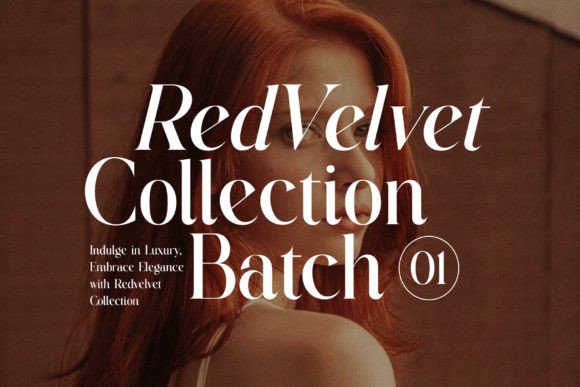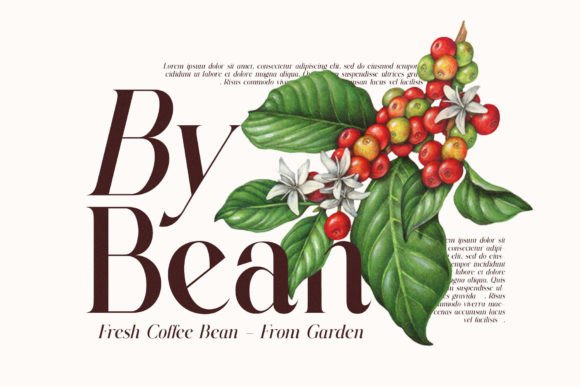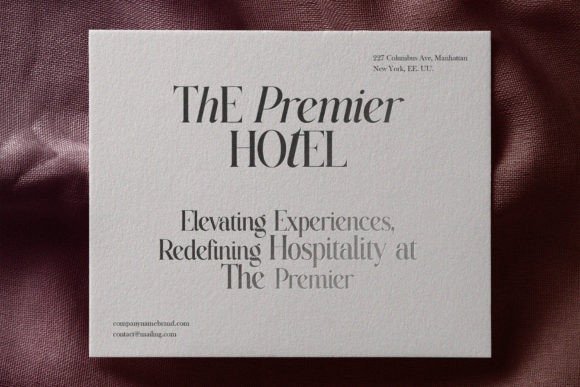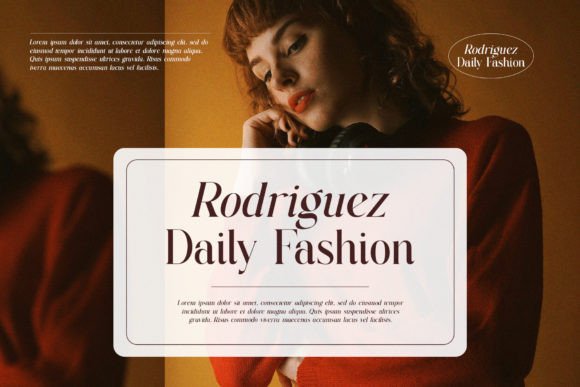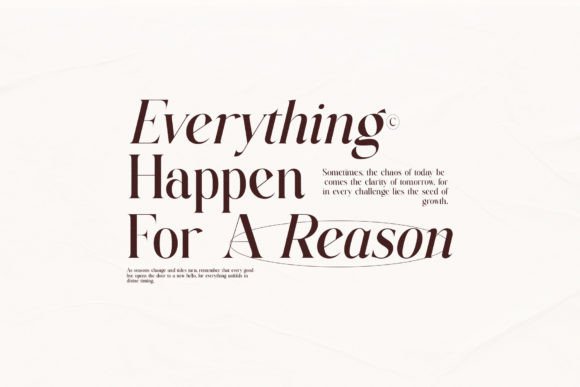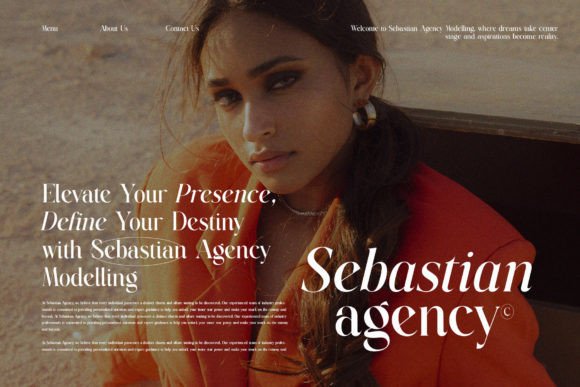
Gilkyst Font: A Modern Twist on Classic Italian Type
In the world of typography, fonts play a crucial role in conveying messages, evoking emotions, and creating brand identities. For designers and crafters, finding the right font can make all the difference in their creative projects. One font that has gained attention in recent times is the Gilkyst font, a elegant serif typeface that draws inspiration from the rich history of Italian type.
The Inspiration Behind Gilkyst Font
The Gilkyst font is a nod to the classic Italian typefaces that have been a cornerstone of typography for centuries. Its creators sought to bring a modern twist to traditional serif fonts, resulting in a unique and sophisticated typeface. The font’s design is reminiscent of the ornate and elegant styles of Italian typography, with clean lines, precise curves, and a sense of refinement.
Characteristics of Gilkyst Font
Gilkyst is a serif font that boasts a range of characteristics that make it ideal for various design applications. Some of its key features include:
- Elegant and refined design: Gilkyst’s serif design exudes sophistication and elegance, making it perfect for high-end brands, fashion labels, and luxury products.
- Modern style: The font’s modern twist on traditional serif fonts makes it versatile and suitable for a wide range of design projects, from logos and billboards to posters and editorials.
- Legibility: Gilkyst’s clear and precise lines ensure excellent legibility, even at smaller font sizes, making it ideal for body text and captions.
Use Cases for Gilkyst Font
Gilkyst font is a versatile typeface that can be used in various design applications, including:
- Logos: Gilkyst’s elegant design makes it perfect for logos that require a touch of sophistication and refinement.
- Billboard advertising: The font’s modern style and excellent legibility make it suitable for billboard advertising, where impact and clarity are crucial.
- Fashion labels: Gilkyst’s luxurious feel makes it an excellent choice for fashion labels, where style and sophistication are paramount.
- Posters and modern editorials: The font’s elegant design and versatility make it ideal for posters and modern editorials, where creativity and visual appeal are essential.
Why Choose Gilkyst Font?
With so many fonts available, why choose Gilkyst? Here are a few compelling reasons:
- Unique style: Gilkyst’s modern twist on traditional serif fonts makes it stand out from the crowd, ensuring your designs will be noticed.
- Versatility: The font’s versatility makes it suitable for a wide range of design applications, from logos and billboards to posters and editorials.
- Engagement: Gilkyst’s elegant design and excellent legibility make it an excellent choice for designers and crafters looking to engage their audience and create a lasting impression.
In conclusion, the Gilkyst font is an elegant serif typeface that brings a modern twist to traditional Italian type. Its refined design, versatility, and excellent legibility make it an excellent choice for designers and crafters looking to create stunning visual content. Whether you’re designing a logo, billboard, or editorial, Gilkyst font is sure to impress. So why not give it a try and experience the power of Gilkyst for yourself?